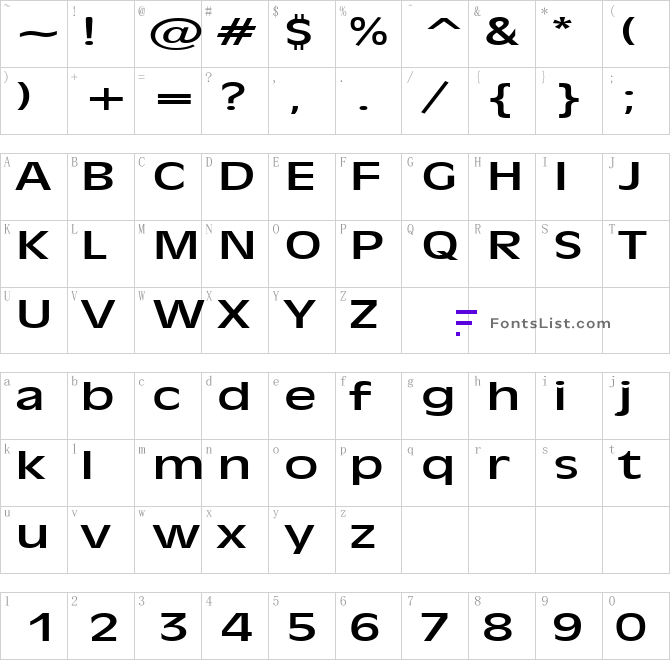
- Font Name:Antiqua 101 Extended
Antiqua-101-Extended-Normal.ttf is a very beautiful artistic font, Antiqua-101-Extended-Normal.ttf is widely used in the design and printing of various books and pictures,Antiqua-101-Extended-Normal.ttf has a strong visual impact,Antiqua-101-Extended-Normal.ttf is a commonly used font in newspapers, magazines and books, and is used in posters, e-commerce Poster design, store design, logo design, font design and other fields.Antiqua-101-Extended-Normal.